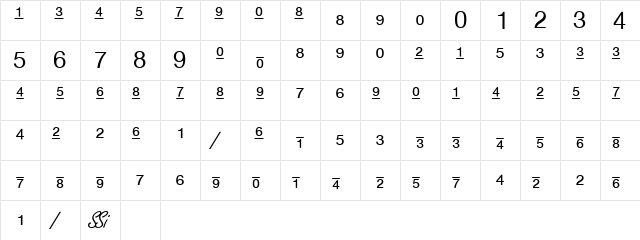
Context Fractions SSi Fractions
Context Fractions SSi takes a measured approach to typography — its balanced proportions and neutral character make it a reliable workhorse for both digital and print work.